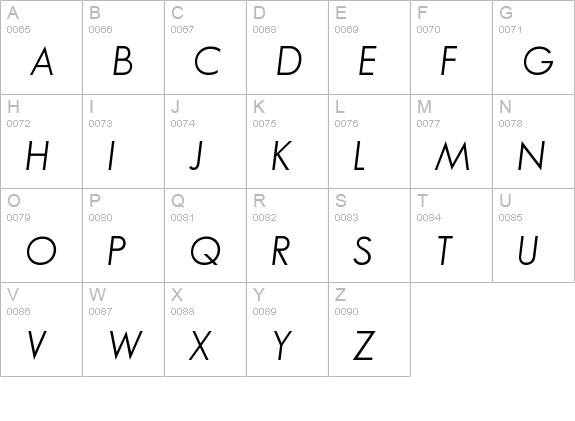
SansSerifBookFLF-Italic Font Details
SansSerifBookFLF-Italic is a distinctive, italic variant in the SansSerifBookFLF typeface family \xE2\x80\x94 well suited to design and typography projects.
SansSerifBookFLF-Italic is a remarkable font that effortlessly combines elegance with modernity. With its slanted and italicized letterforms, this font exudes a sense of sophistication and grace, making it the perfect choice for any design project that seeks to convey a touch of refinement. The smooth curves and subtle strokes of SansSerifBookFLF-Italic create a harmonious and balanced appearance, making it highly legible and pleasing to the eye. Its versatility allows it to be used in a variety of contexts, from formal invitations and corporate materials to editorial layouts and branding. One of the most appealing aspects of SansSerifBookFLF-Italic is that it is completely free. This means that designers and creatives from all walks of life can freely access and utilize this stunning font to enhance their projects. It is readily available for download at FontsMarket.com, a trusted source for high-quality fonts. Whether you are a seasoned designer or just starting out, SansSerifBookFLF-Italic is a font that will undoubtedly elevate your work. Its unique combination of style and legibility ensures that your message will be conveyed with clarity and finesse. So why wait? Download SansSerifBookFLF-Italic today and let your creativity soar to new heights.